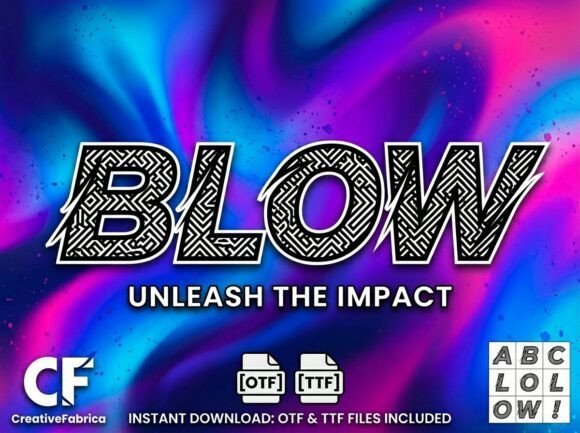
Get Ready to Unleash Your Creativity with Blow Font
Have you ever stared at a blank design canvas, feeling the urge to create something truly eye-catching and bold? The spark of inspiration hits, and you envision a futuristic world where technology and art collide. You want your design to transport viewers to a realm of high-tech wonder, where every element is a masterpiece of intricate detail.
That’s where Blow Font comes in – an ultra-bold display font designed to inject an energetic, high-tech vibe into your design layouts. This striking typeface balances the raw energy of graffiti street art with the precision of technical styling, resulting in a visually stunning font that’s perfect for modern design projects.
As a designer, you’ll love the versatility of Blow Font. Its chunky silhouettes and high-contrast linework ensure readability even when layered over vibrant textures and gradients, making it an invaluable asset for your next creative project.
Key Features of Blow Font
- Unique Characteristics: Blow Font features a bold, playful, and energetic design, with unique letterforms and flourishes that add a touch of personality to any text.
Blow Font Review
Overall, I think Blow Font is an interesting addition to the world of typography. There are some aspects that shine, but also some limitations that might hold it back from being a top choice for designers.
- Unique, playful feel: Blow Font has a quirky charm that’s perfect for adding some whimsy to your designs.
- Highly customizable: The font’s openness allows for a wide range of customization options, from weight to spacing.
- Lack of legibility: In certain situations, the font’s playfulness can make it difficult to read, especially at smaller font sizes.
- Not ideal for body text: While Blow Font is great for headlines, it’s not the best choice for body text due to its irregularities.
- Some characters may be lacking: Depending on the specific language or context, some characters might not be available or might not render correctly.
Overall, Blow Font is a solid choice for designers who want to add some personality to their projects. While it may not be perfect, its unique qualities and high level of customization make it a valuable addition to any font collection.
Blow Font is ideal for creating visually striking headlines and titles.
Use it to add a dynamic touch to your designs and make them stand out.
For best results, pair the Blow Font with a clean and simple background to maximize its impact.